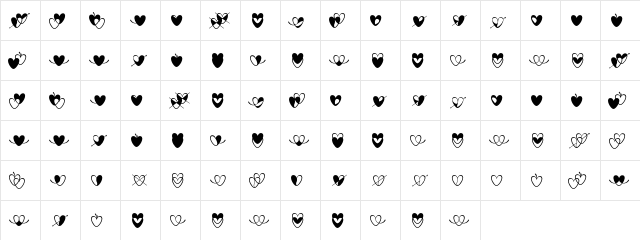
love art design Font Preview
love art design
Design Context for love Typeface
love is a composed and adaptable typeface that performs quietly and consistently across a wide range of design contexts.